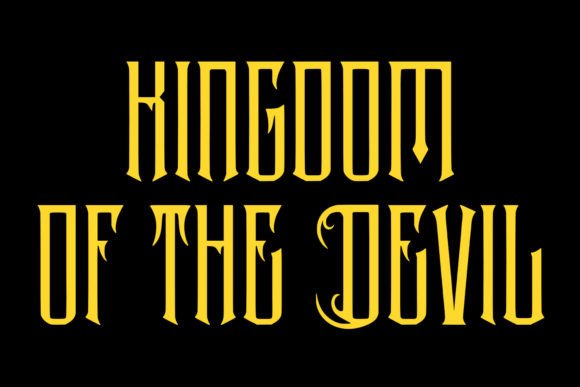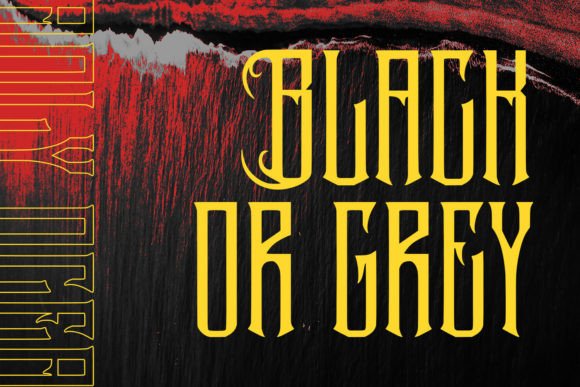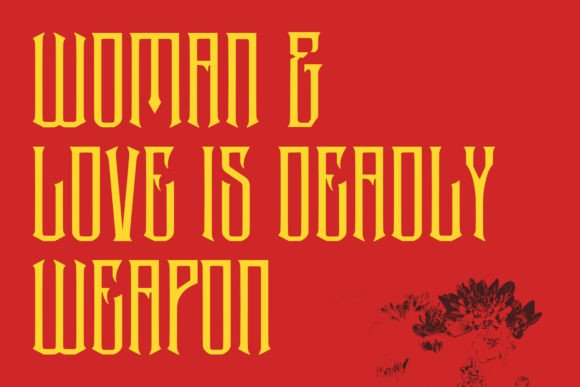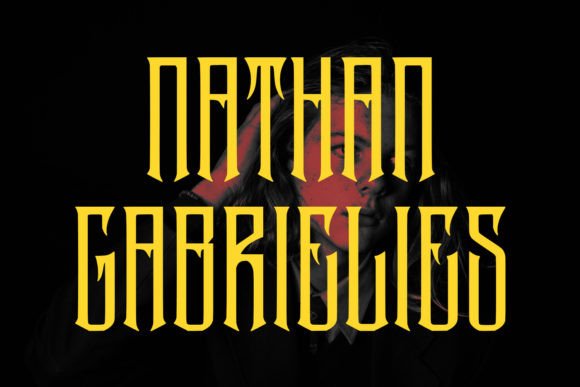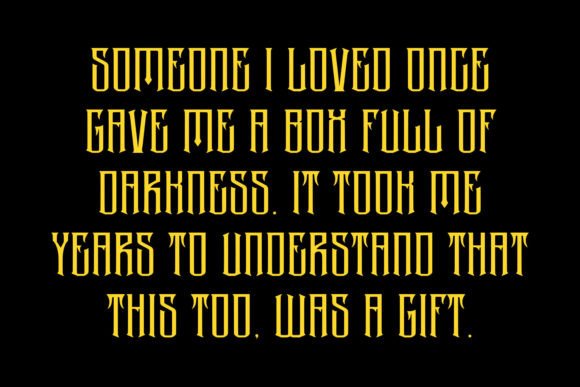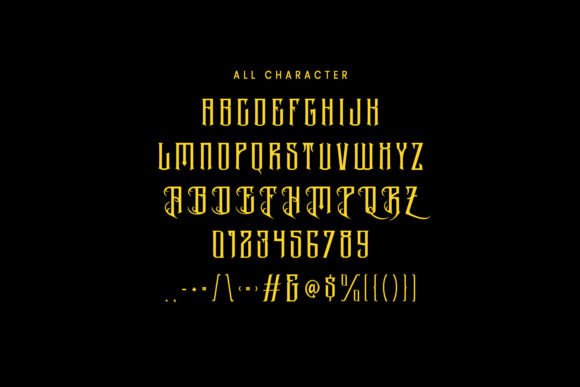
Introduction to Raddkits Font
Raddkits is a bold and stylish Blackletter display font.
It features intricate, gothic-inspired letters that make a strong, dramatic statement Perfect for eye-catching headlines or unique designs, Raddkits combines classic charm with modern flair.